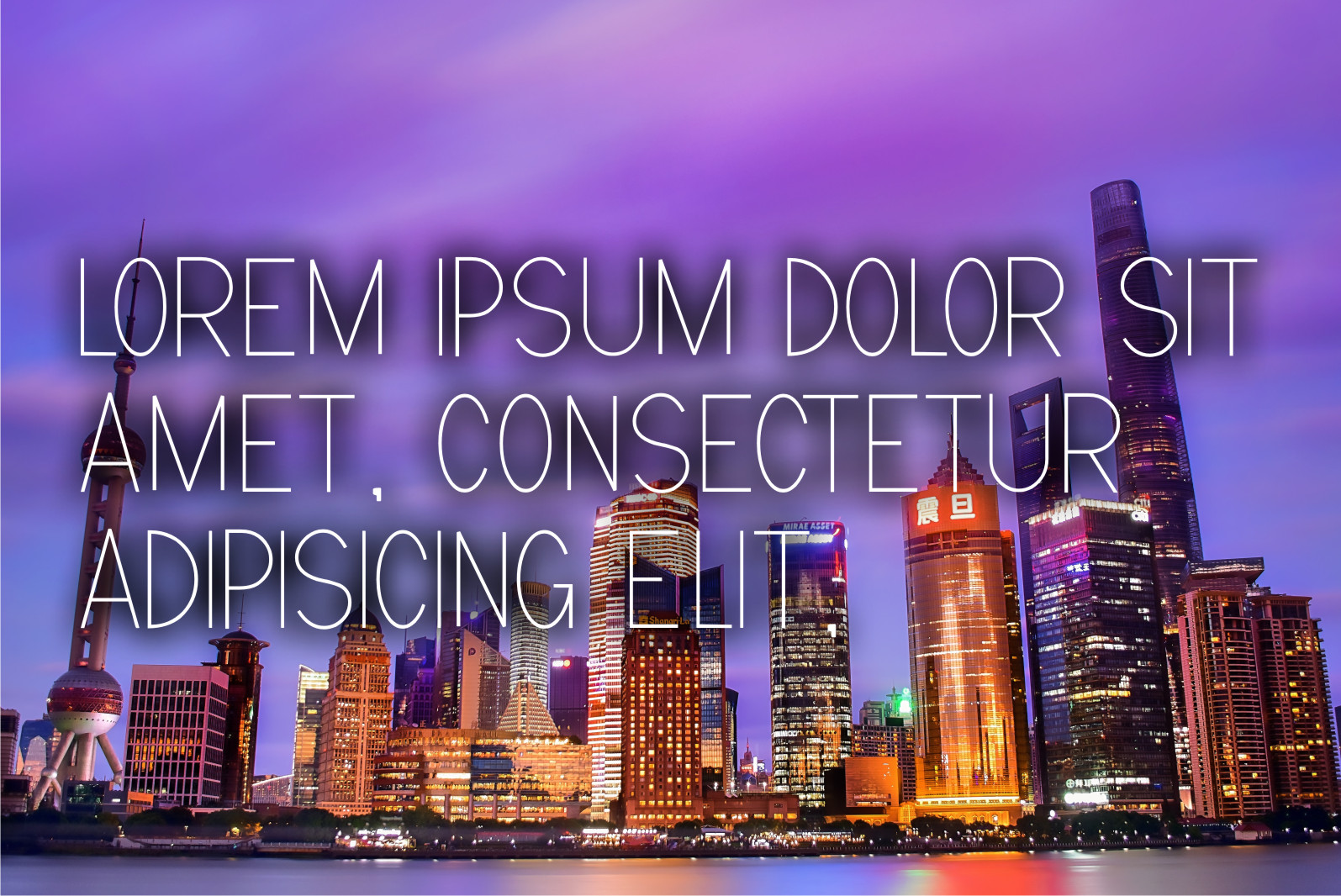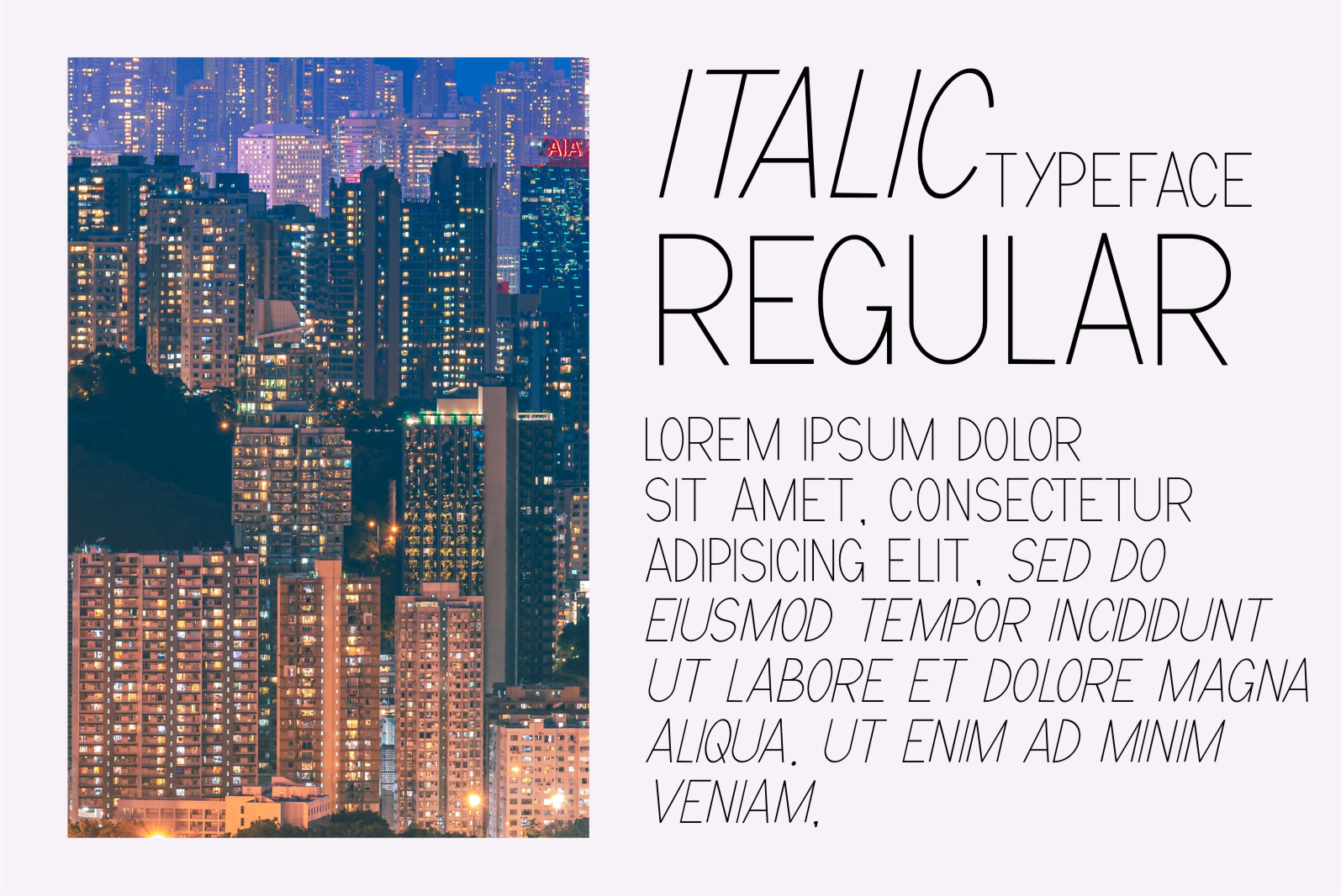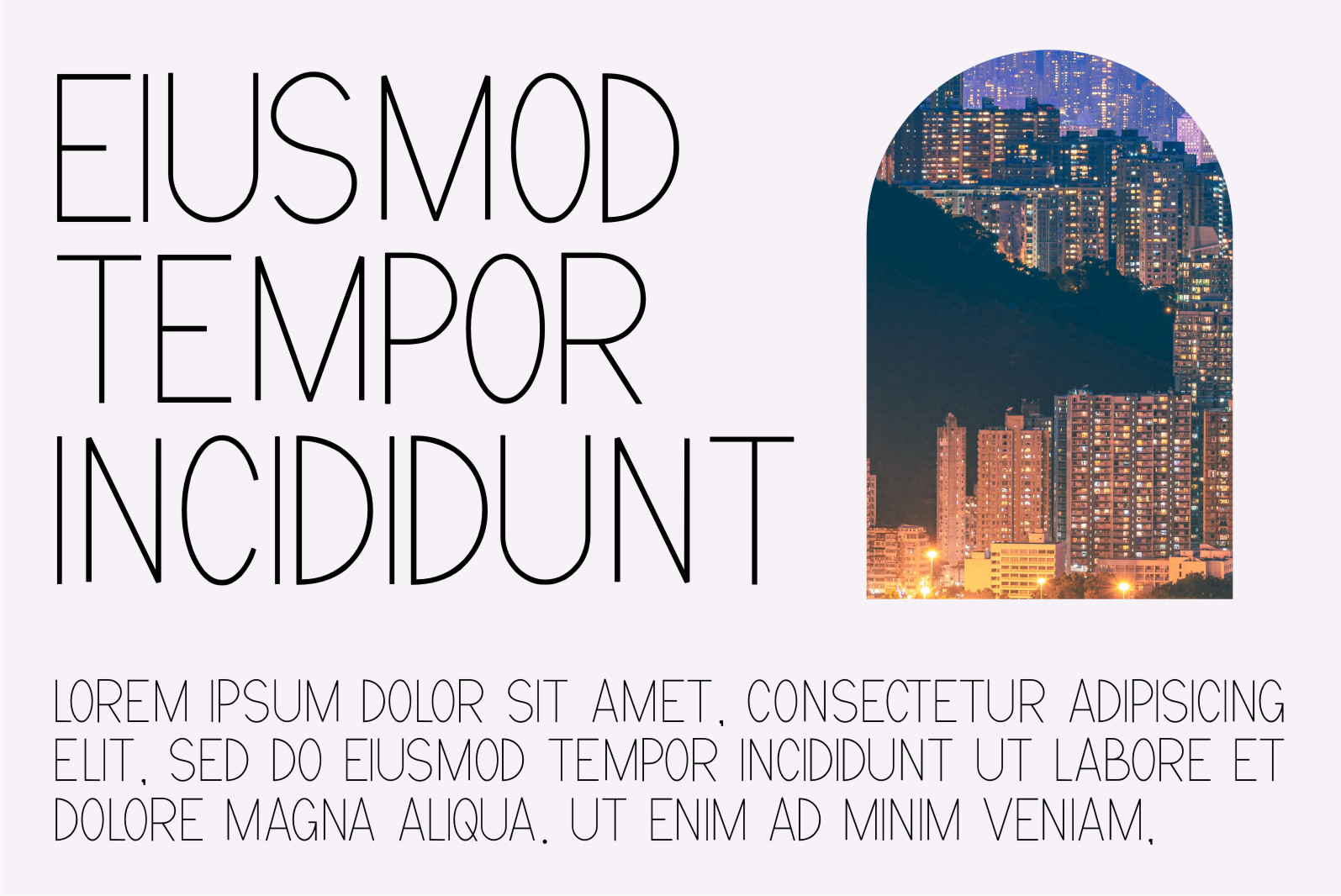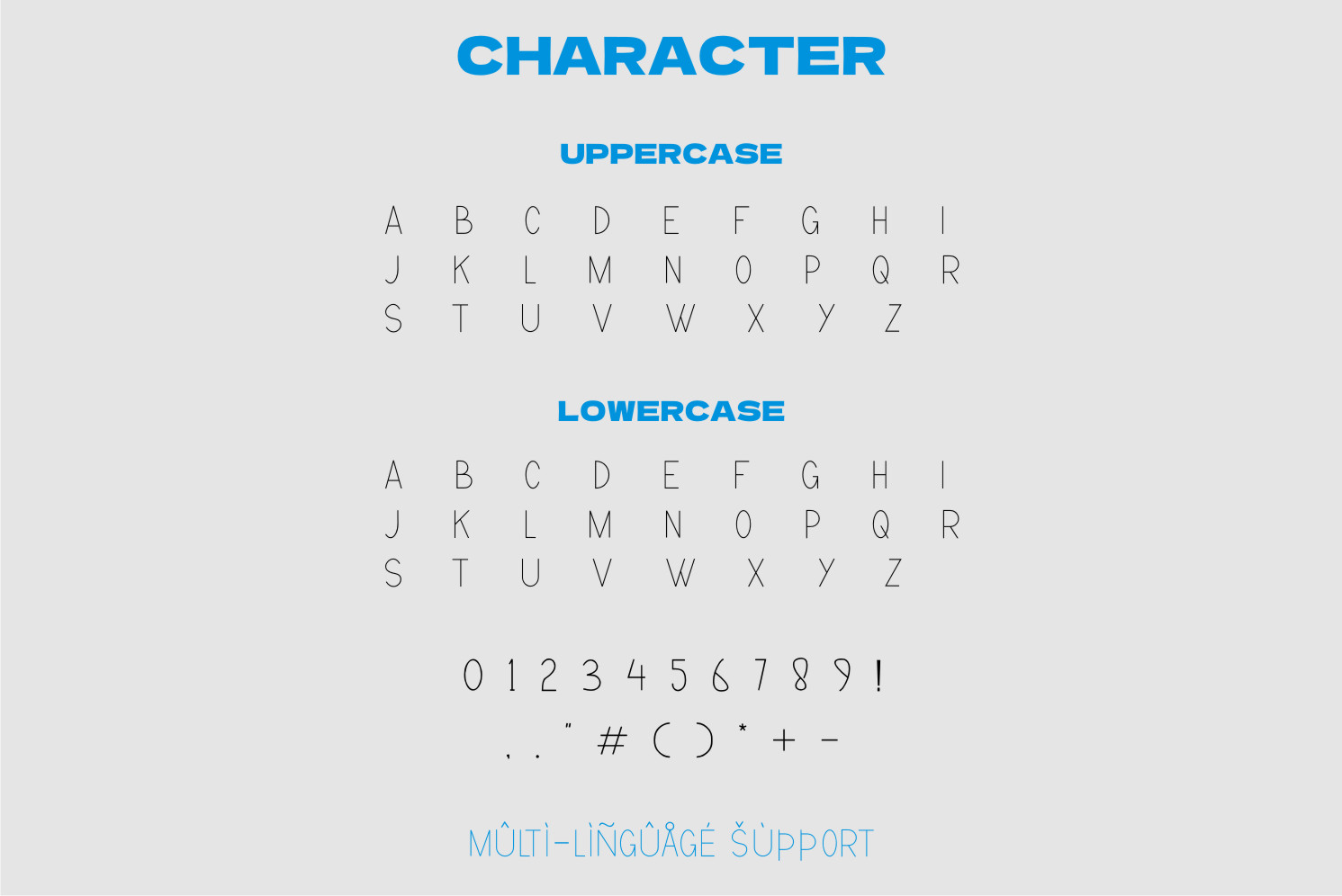
Minimalising Display Font
It’s a clean, thin lettered and adaptable sans serif font. Whether you’re using it for crafting, digital designing, presentations or greeting cards making, it’s perfect!